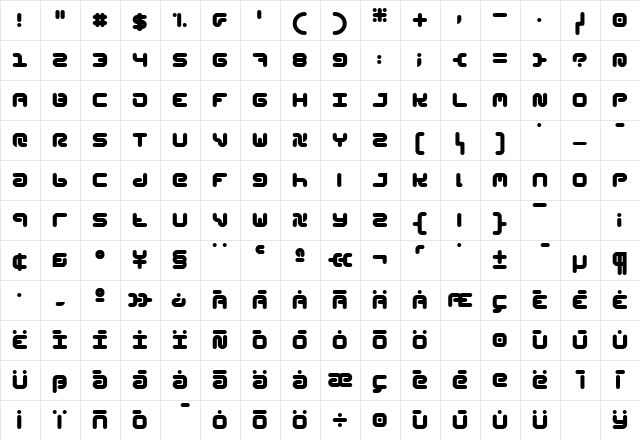
Styl Plain
Design Context for Styl Typeface
Styl takes a measured approach to typography — its balanced proportions and neutral character make it a reliable workhorse for both digital and print work.